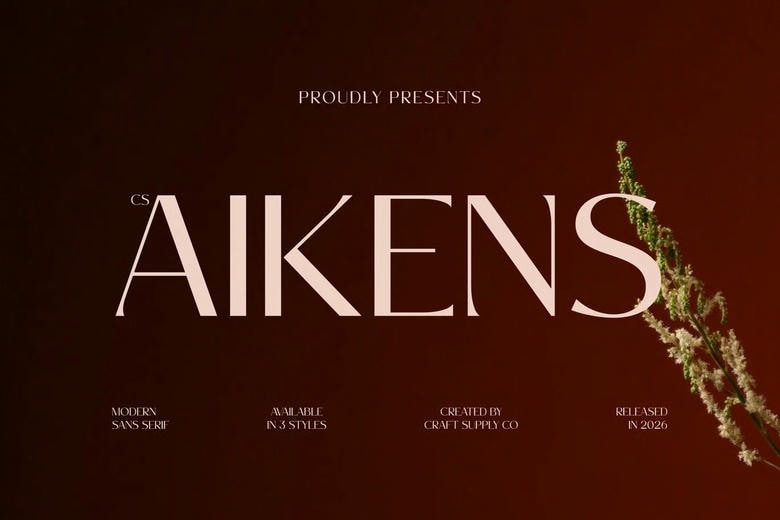
Aikens Font
Aikens is a modern sans-serif font with a clean, elegant look. Its simple design brings a refined feel to any project. The balanced proportions and modern shape make it both polished and versatile.
This font works well for editorials, branding, and lifestyle products. If you are designing magazines, brands, or fashion campaigns, its simple and modern style can help your work look professional and appealing.